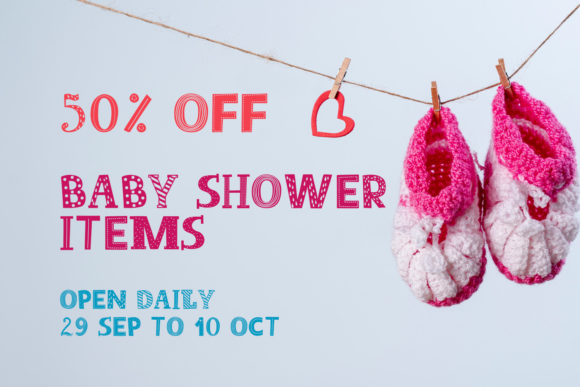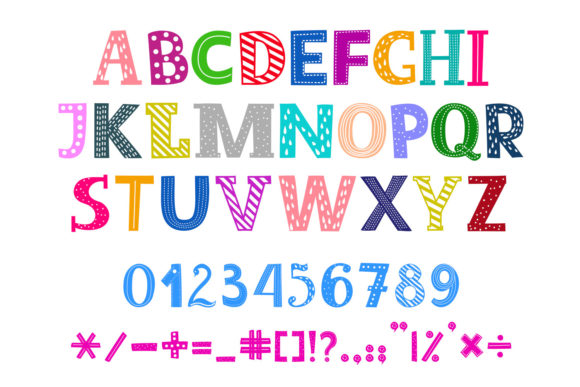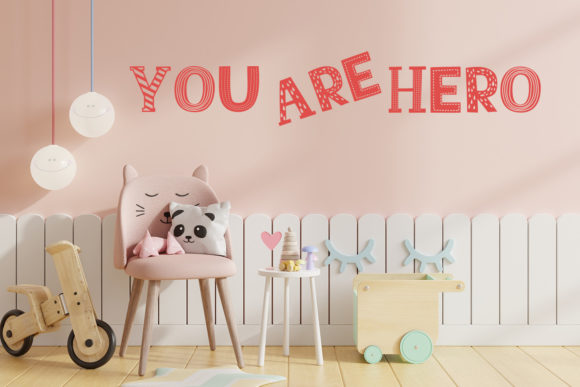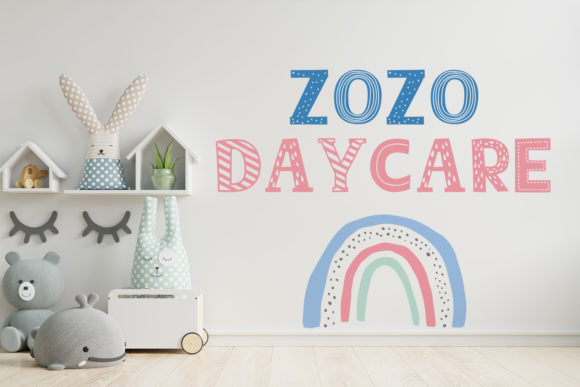
Introduction to Nursery Baby Font
Nursery Baby Font is a lovely display font.
It has a cheerful look that will elevate each of your crafting designs Fall in love with its incredibly versatile style and use it to create spectacular designs.
Key Features of Nursery Baby Font
Why Choose Nursery Baby Font?